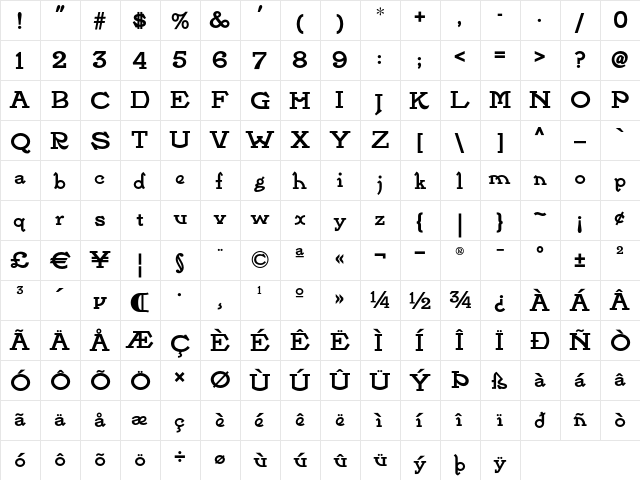
Keynote Speaker NF Regular
Design Context for Keynote Speaker NF Typeface
Keynote Speaker NF is a composed and adaptable typeface that performs quietly and consistently across a wide range of design contexts.
Pro Tip: Use Keynote Speaker NF in both headline and body roles to test its range before committing to a single application.